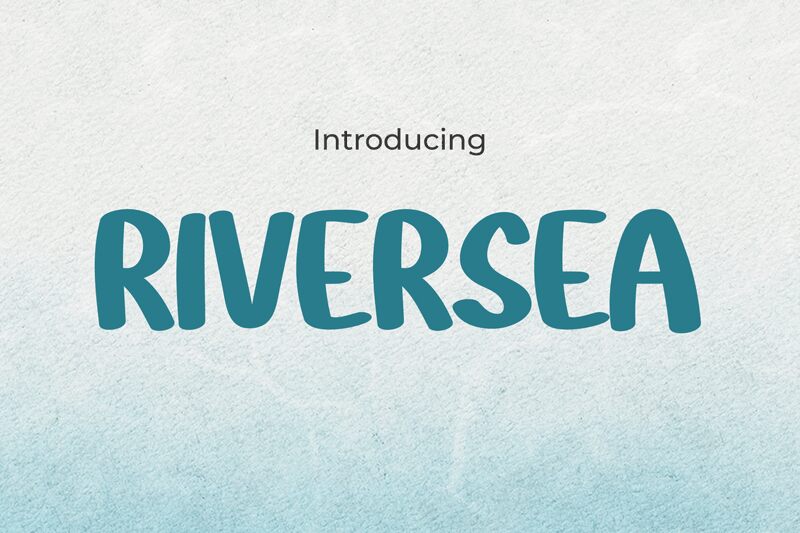
Riversea font designed by Pinisiart spends less time trying to impress with professional rigidness and more time making new friends. Rounded organic figures give this free handwritten font a friendly approachable personality that’s hard to resist. With an informal style that’s based on casual flowing everyday handwriting, this font excels in personal use projects.
Riversea’s modern style suits event invitations and wedding cards to perfection. It works wonderfully on product packaging or handmade business branding, marketing, and merchandise. Explore the Instagram, YouTube, and TikTok content game with visually appealing channel and video cover designs.